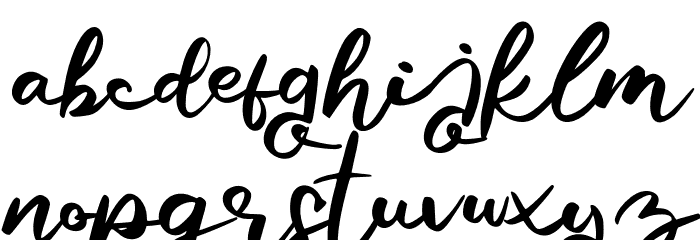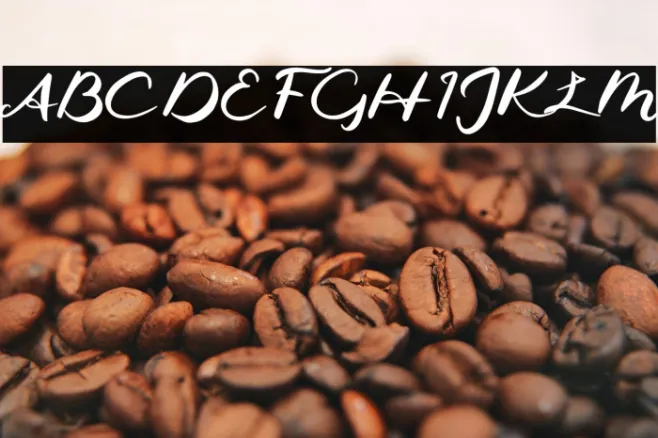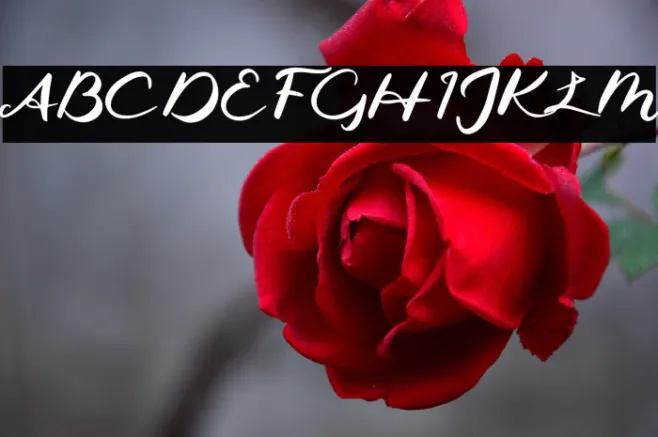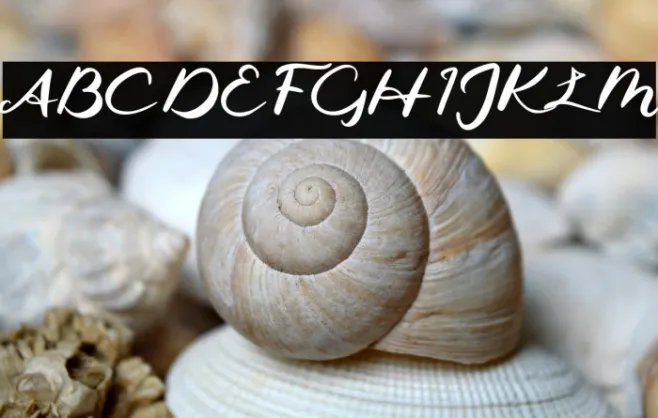
GijiFREE Font
This font features a dynamic and fluid script style, characterized by its elegant and flowing letterforms. The uppercase letters are bold and sweeping, with a sense of movement and grace. The lowercase letters maintain a consistent style, with some letters featuring unique loops and swirls that add to the overall decorative appearance. The font has a hand-drawn quality, giving it a personal and artistic touch. The characters are closely spaced, enhancing the cohesive look of the text. This font is ideal for projects that require a touch of sophistication and creativity.
A dynamic and fluid script font with elegant, flowing letterforms.
- Font: GijiFREE
- Proposed Projects: Ideal for wedding invitations, greeting cards, branding, and logo design.
- Category: Script
- Character Spacing: Tight
- Use Case: Logos, Invitations, Decorative text